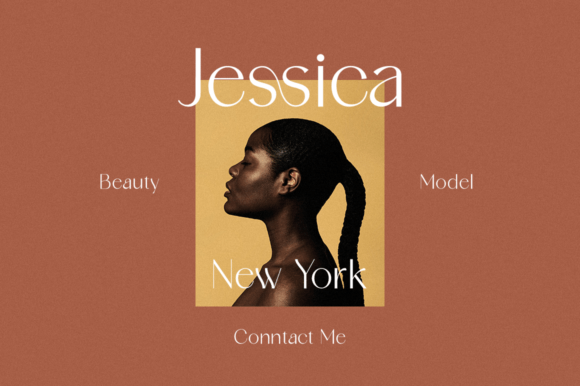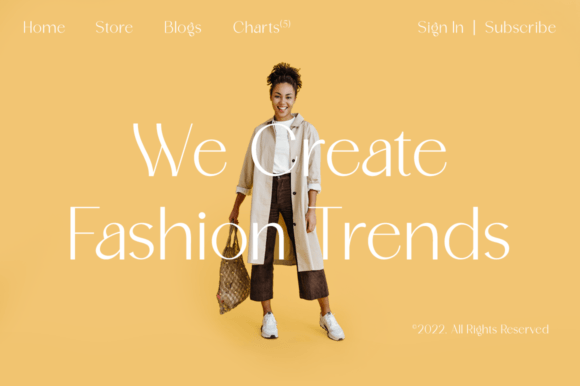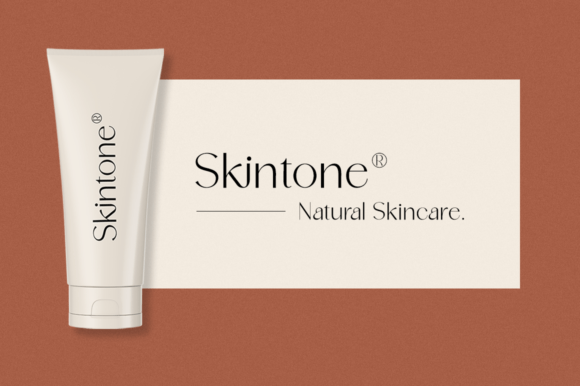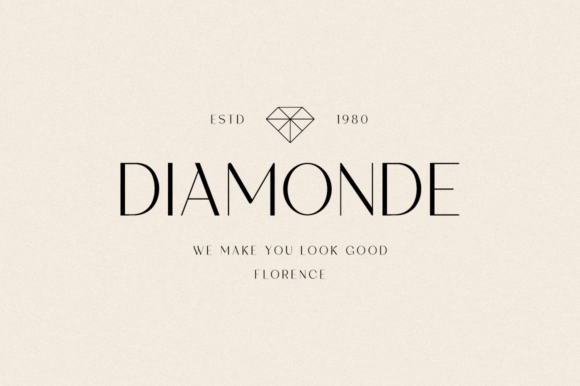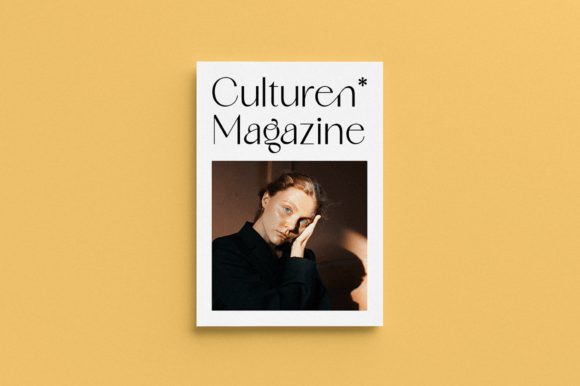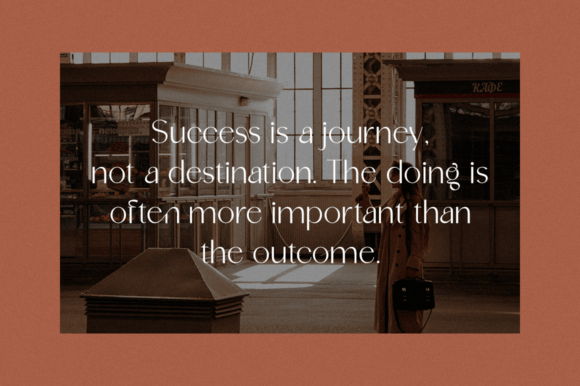
Introducing Actioness Font: The Ultimate Modern Sans Serif for Creative Projects
In the world of typography, fonts play a crucial role in conveying messages, expressing emotions, and creating visual identities. For designers, crafters, and creative enthusiasts, finding the right font can make all the difference in bringing their ideas to life. This is where Actioness Font comes in – a minimal and modern sans serif font designed to elevate your creative projects to new heights.
What is Actioness Font?
Actioness Font is a sleek and contemporary sans serif font that exudes simplicity and sophistication. Its clean lines, rounded edges, and balanced proportions make it an incredibly versatile typeface suitable for a wide range of applications. Whether you’re working on a logo, branding project, website, or marketing material, Actioness Font is the perfect choice to add a touch of modernity and style.
Key Features of Actioness Font
- Minimalist Design: Actioness Font boasts a minimalist design that ensures your message takes center stage. Its simplicity allows for easy pairing with other fonts, images, and design elements.
- Modern Aesthetic: The font’s modern aesthetic is characterized by clean lines, geometric shapes, and a neutral color palette. This makes it perfect for projects that require a fresh and contemporary look.
- High Versatility: Actioness Font can be used for a wide range of projects, from digital media to print materials. Its scalability and legibility ensure that it looks great in various sizes and resolutions.
- Ease of Use: The font is easy to read and understand, making it perfect for body text, headings, and titles.
Why Choose Actioness Font?
With so many fonts available, why should you choose Actioness Font for your creative projects? Here are a few compelling reasons:
- Unique Identity: Actioness Font helps you create a unique visual identity for your brand or project. Its distinctive style sets it apart from more traditional fonts and ensures your message stands out.
- Flexibility: The font’s versatility allows you to use it across various mediums, from digital platforms to print materials.
- Time-Saving: With Actioness Font, you can save time and effort in finding the perfect font for your project. Its wide range of applications means you can use it for multiple projects, reducing the need to search for new fonts.
How to Use Actioness Font in Your Projects
Using Actioness Font in your projects is easy and straightforward. Here are a few tips to get you started:
- Pair it with Other Fonts: Experiment with pairing Actioness Font with other fonts to create a unique visual hierarchy.
- Choose the Right Size: Select a font size that suits your project’s requirements. Actioness Font is highly legible, making it suitable for both headings and body text.
- Play with Colors: Actioness Font looks great in various colors. Experiment with different color schemes to find the perfect combination for your project.
In conclusion, Actioness Font is a powerful tool for designers, crafters, and creative enthusiasts looking to elevate their projects with a modern and minimalist sans serif font. Its versatility, ease of use, and unique style make it an excellent choice for a wide range of applications. By incorporating Actioness Font into your creative workflow, you’ll be able to create visually stunning projects that stand out from the crowd.